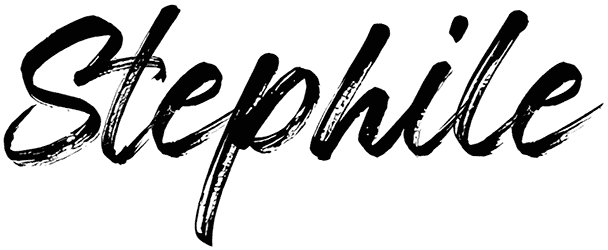
Batsand Font
A fantastic brush font design has been selected for today. You will be amazed to see the sharp lines and brushes, and with exciting characters. This font is suitable for designs that need adrenaline and high excitement.
It can be used for many designs, including posters for martial arts clubs, MMA, boxing, posters of deadly animal movies, and even art galleries because of the brush lines.